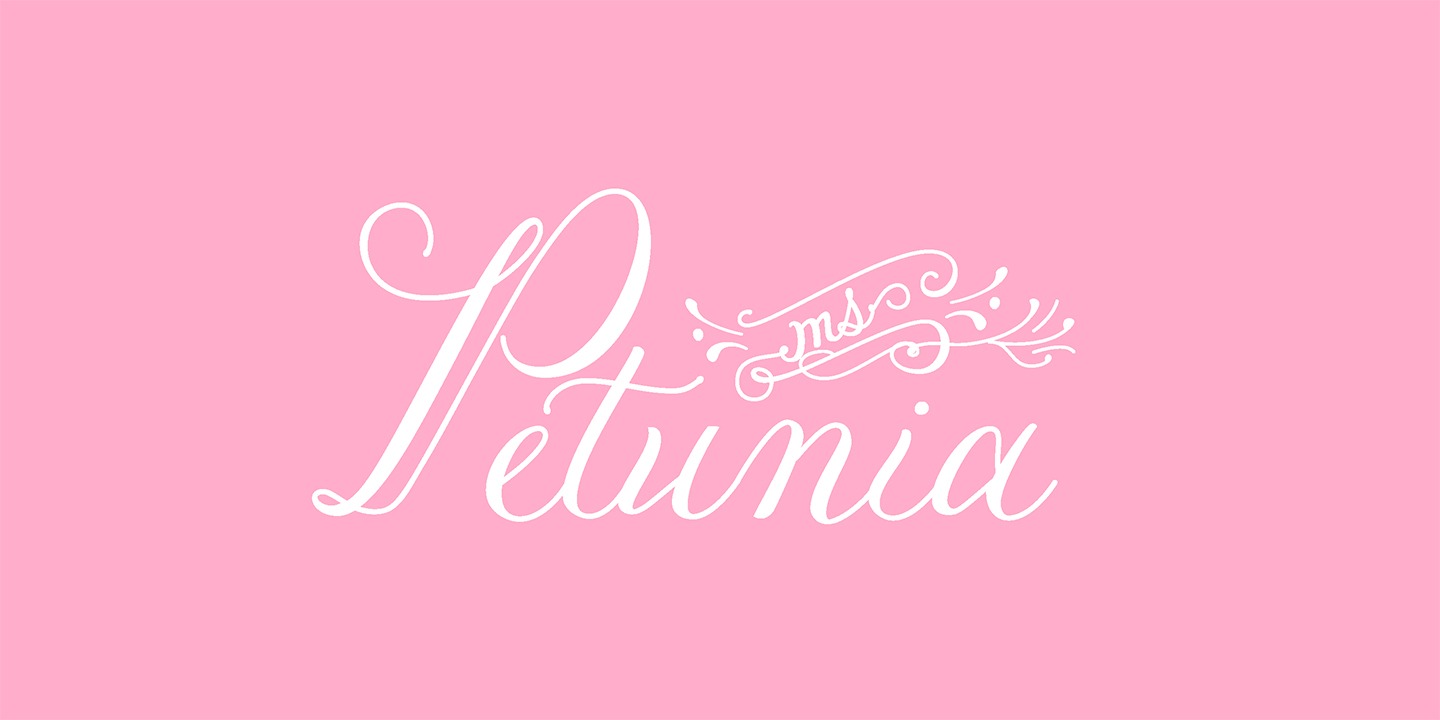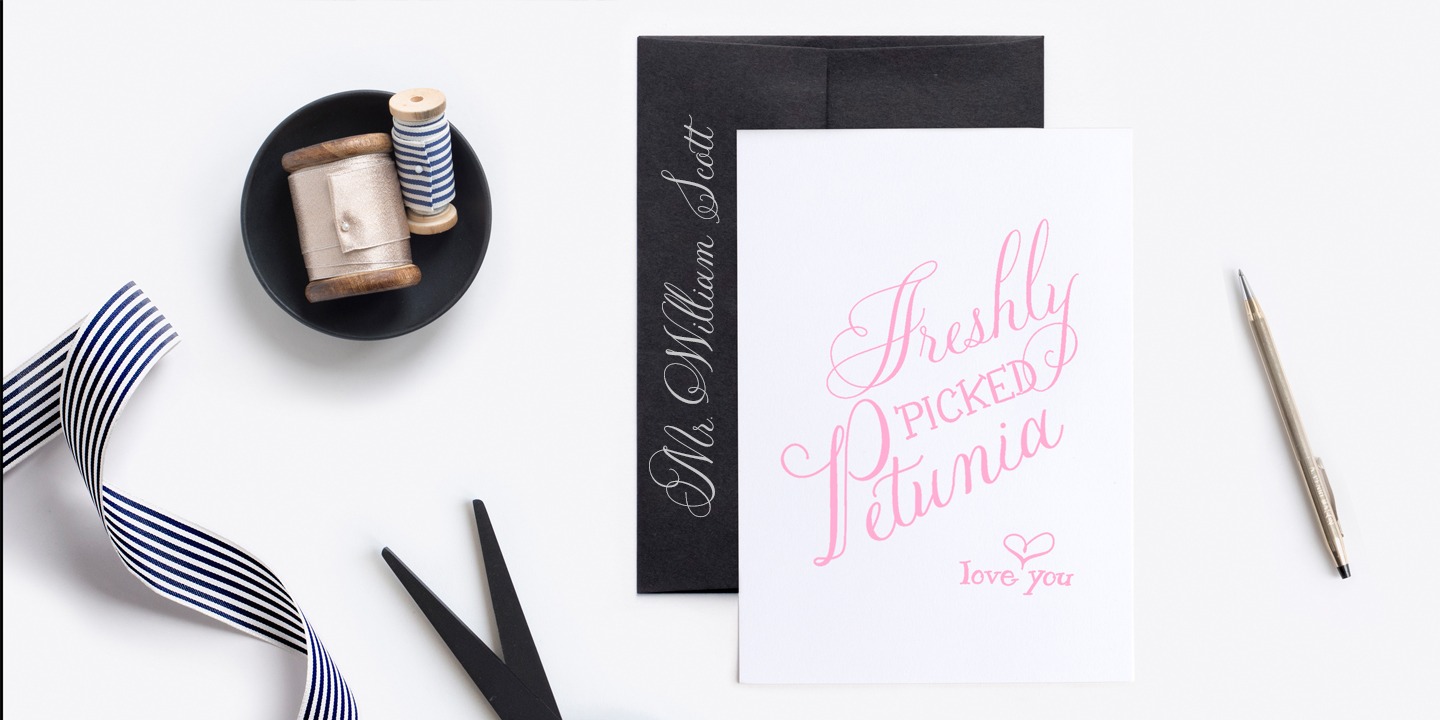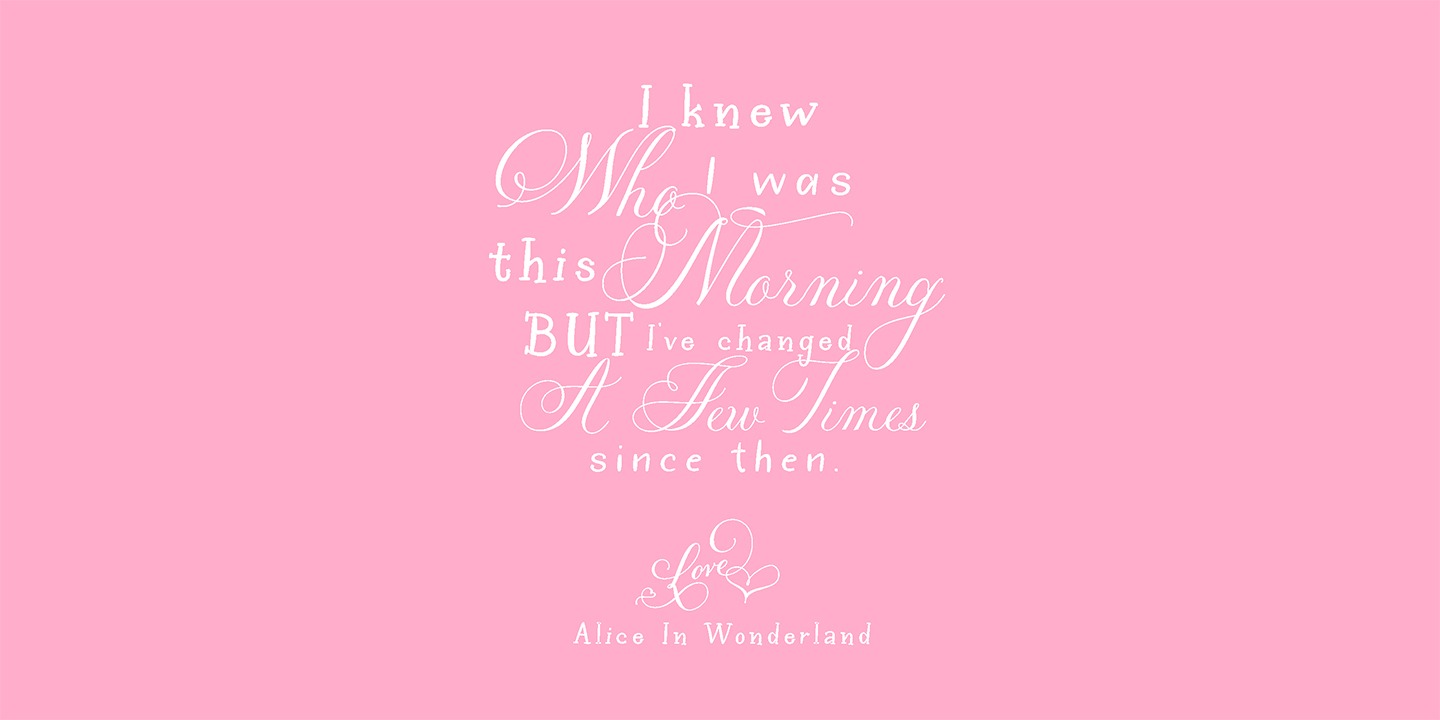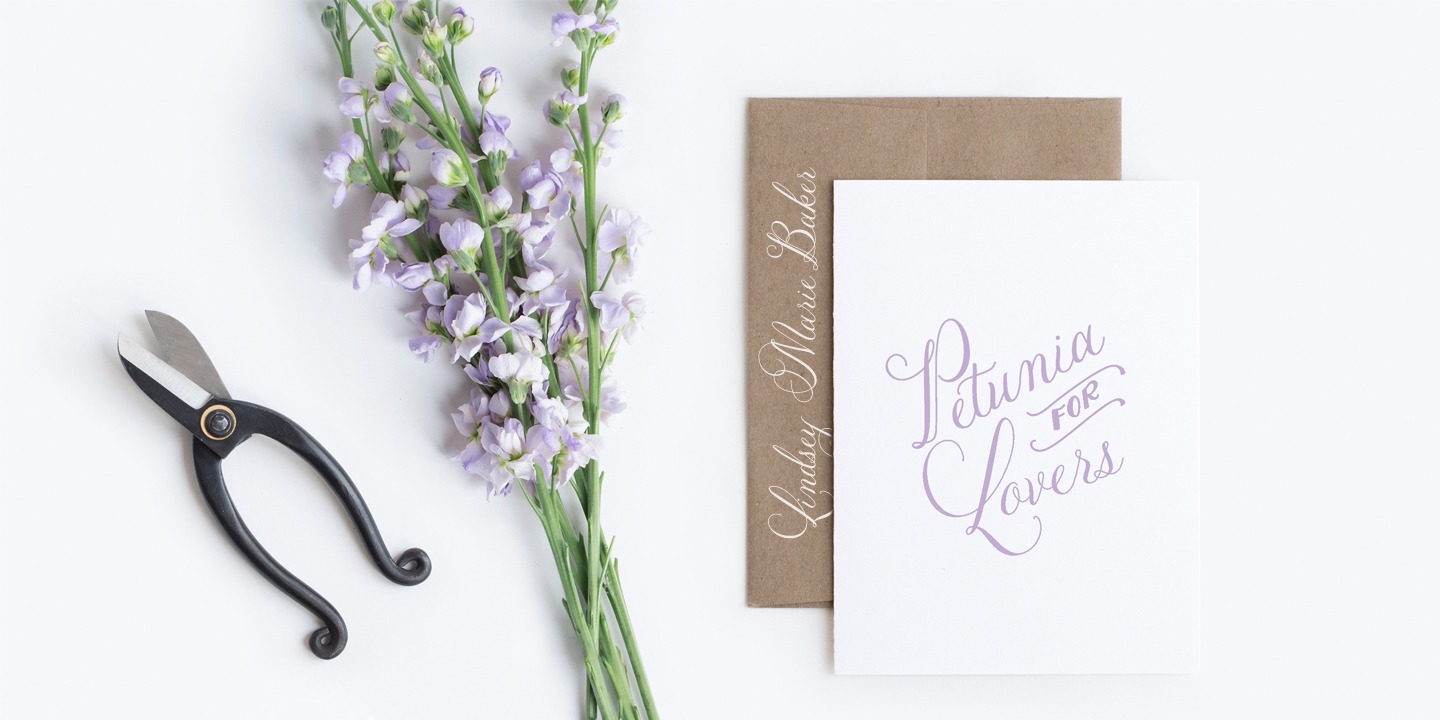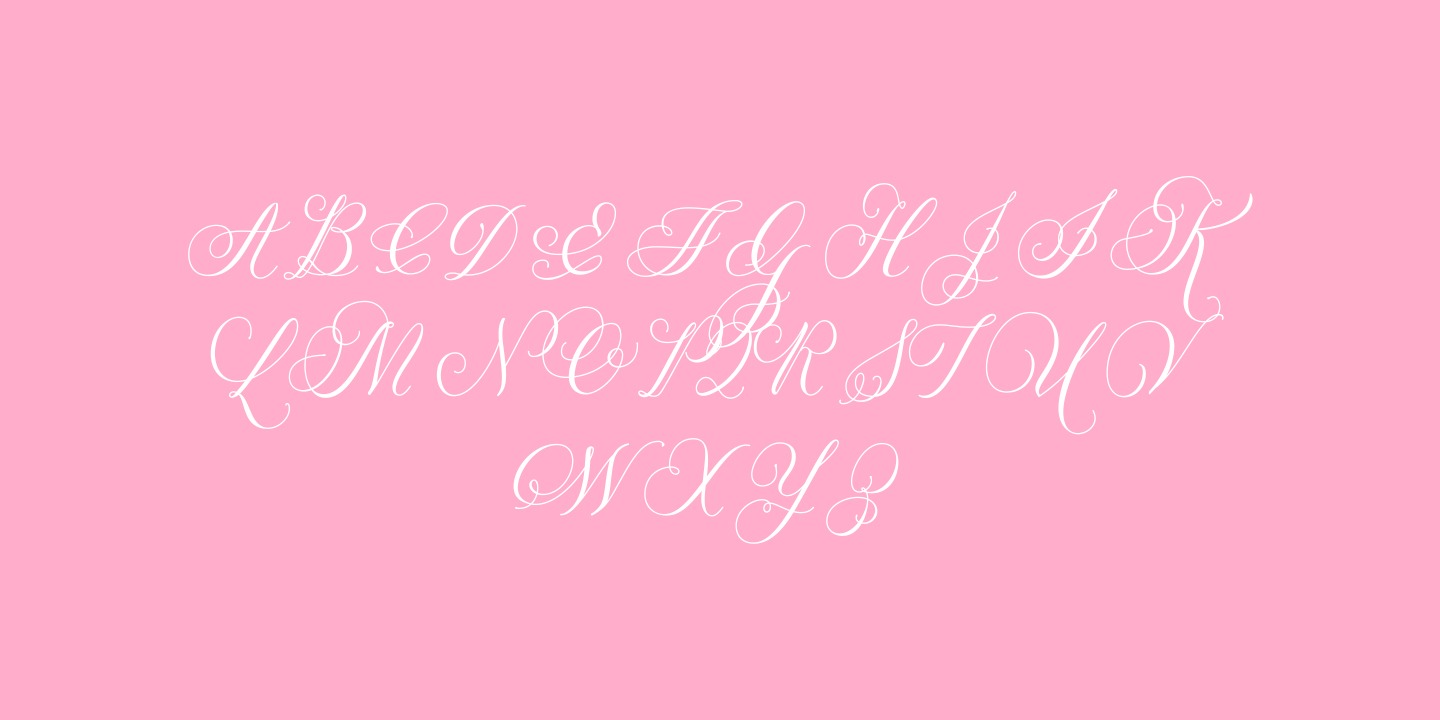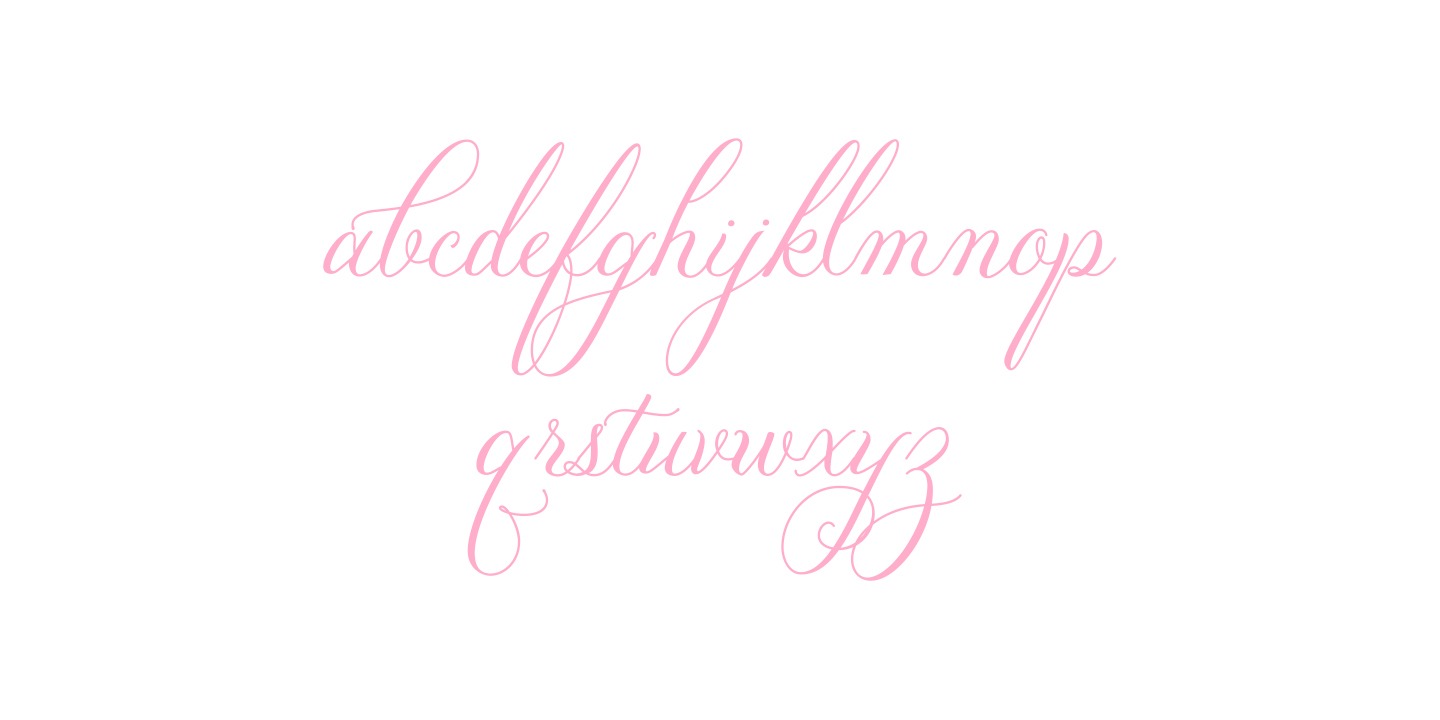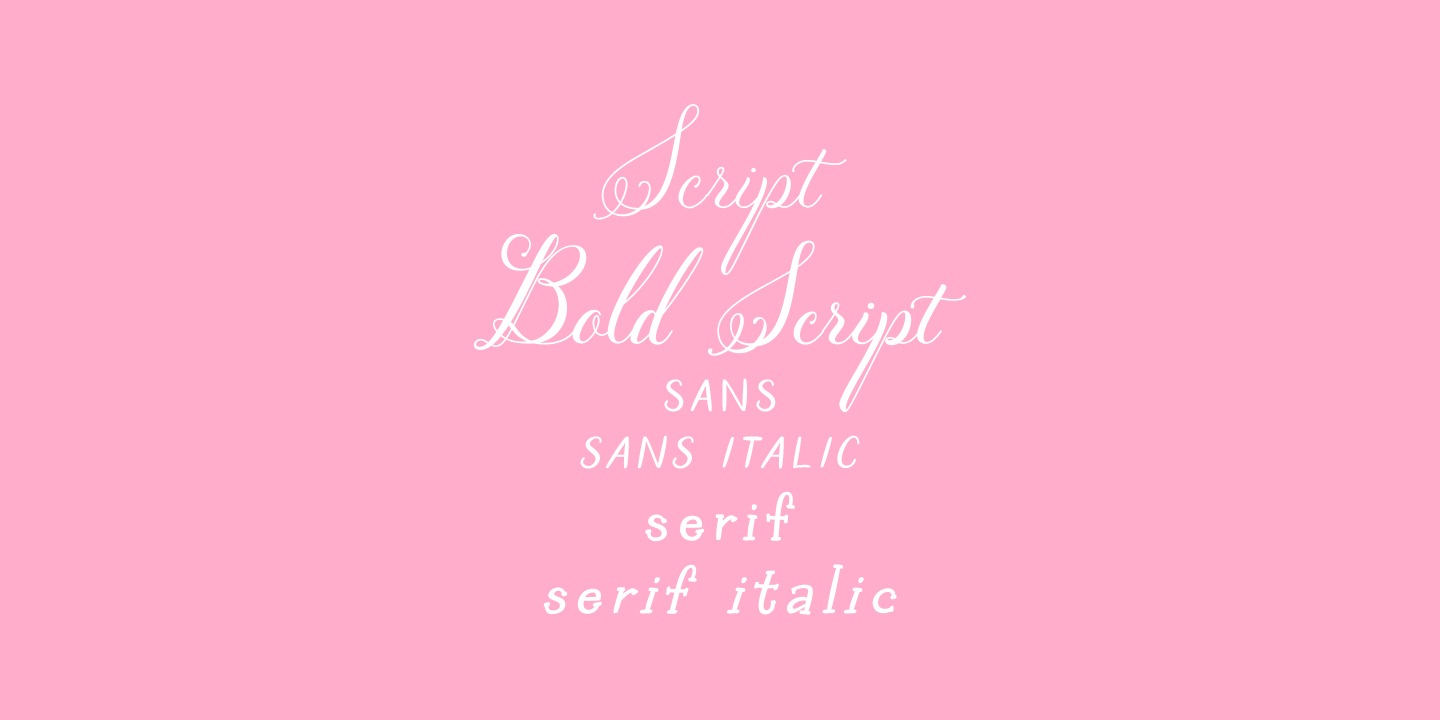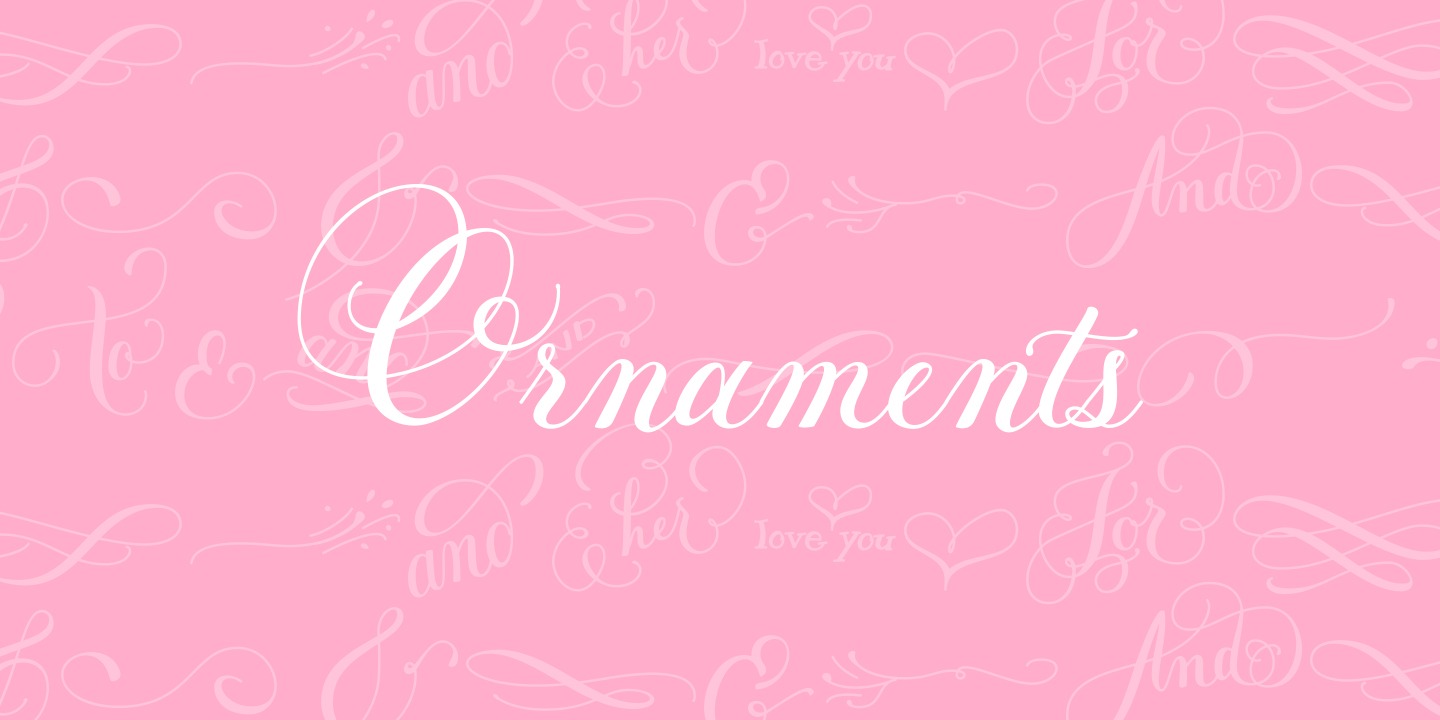
Petunia
Font Family by Great Lakes Lettering
Her modern copperplate script has been a style she has been developing throughout her career. Her angelic flourishes and bouncy style are widely influenced by Eliza's favorite childhood character Alice in Wonderland falling down the rabbit hole. She pairs her elegant script with a traditional sans serif and serif which is based on Eliza's everyday handwriting. The name ?Petunia' acquired from her childhood nickname her parents called her which was only fitting to choose as the name of her font that was derived from her childhood fantasies. Widely known in the wedding industry, she curated this font family for industry professionals with a versatile array of styles: a script, a bold script, sans serif, sans serif italic, serif, serif italic, and specially calligraphy words & ornaments making this a total package for all types of designers.